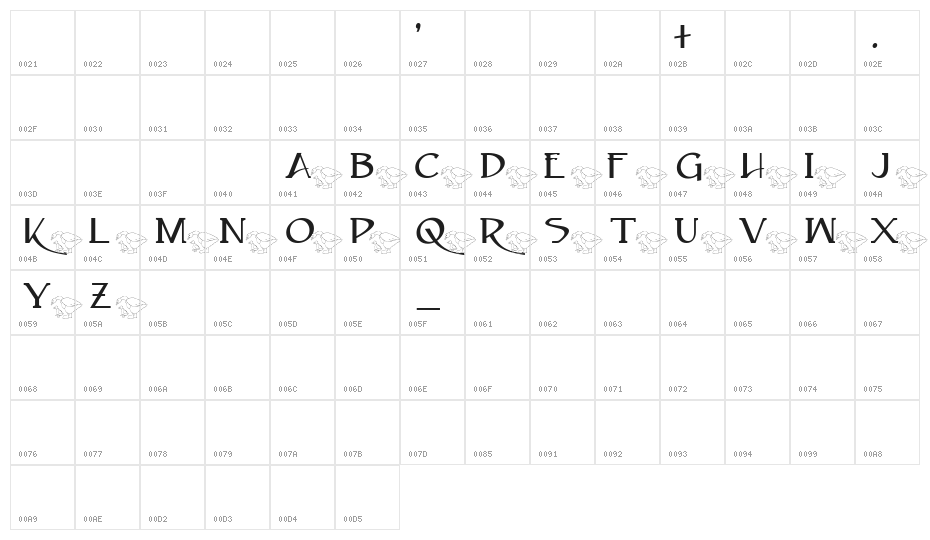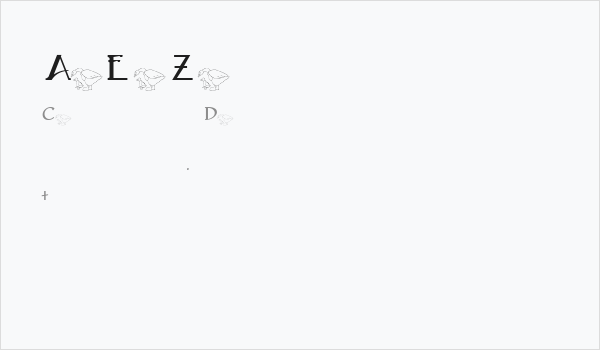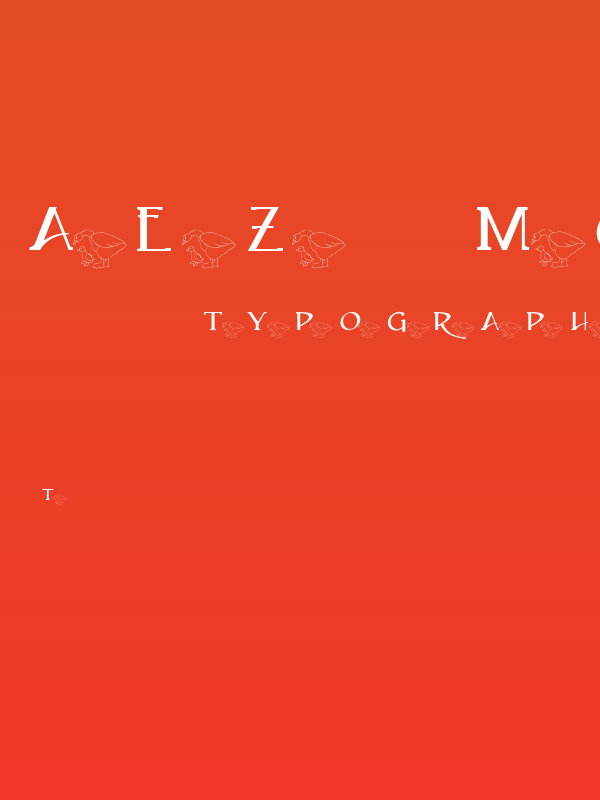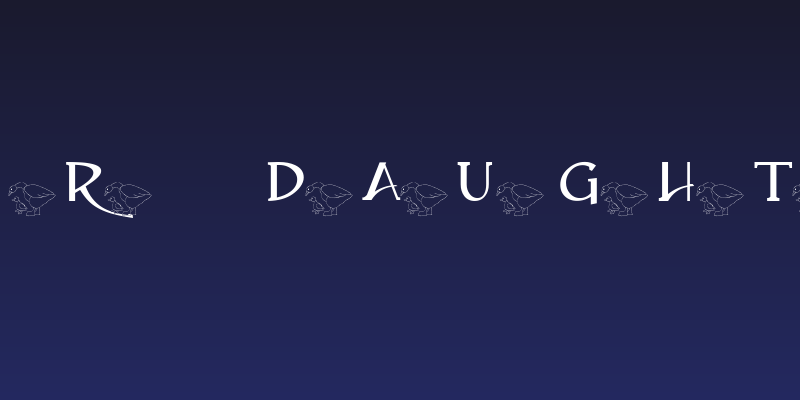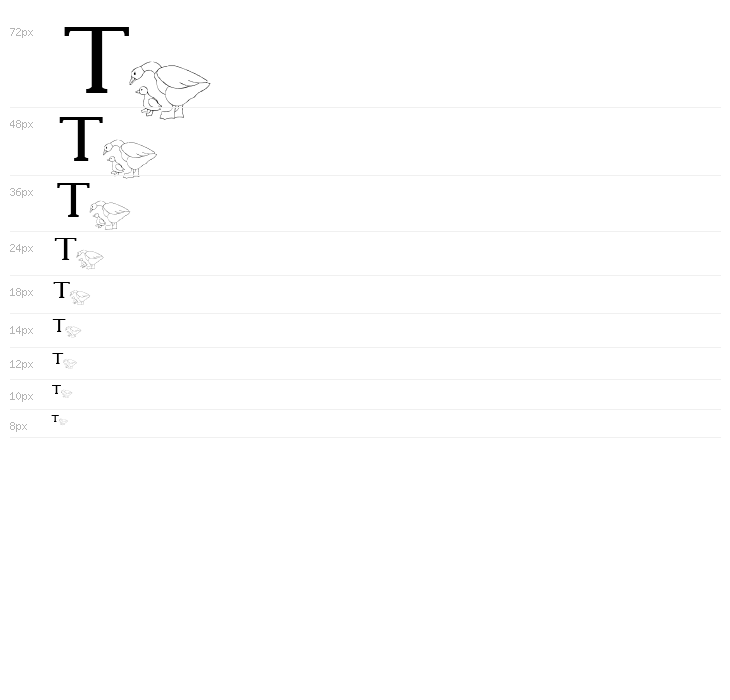
AEZ mother daughter ducks Font
AEZ mother daughter ducks Description
This decorative font features a whimsical design with each letter accompanied by a small illustration of a duck, creating a playful and unique visual effect. The letters themselves are serif with a classic and elegant style, providing a nice contrast to the playful duck motif. The font is primarily uppercase, with a limited set of punctuation marks. The overall design is charming and would be suitable for projects that require a touch of creativity and fun. The combination of classic serif elements with the decorative duck illustrations makes it stand out as a distinctive choice.
| Use Case | Headlines, Invitations, Creative Projects |
| Proposed Projects | Ideal for children's books, playful invitations, or any project that benefits from a whimsical and creative touch. |